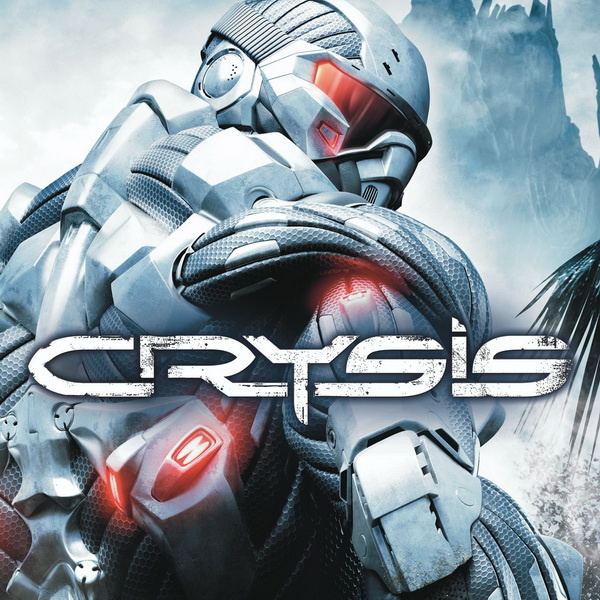
Crysis Font
Fonts in UseCrysis is a first-person shooter video game developed by Crytek. The game's storyline revolves around a group of military super soldiers equipped with advanced nanosuits, engaging in a battle against both North Korean and extraterrestrial forces on a tropical island.
The Crysis cover art features a nanosuit wearing fighter and a grunge-style logotype, with the font called Crysis Bold by Romochka. The font is available for free download from the Fonts Used Section with uppercase letters, numbers, punctuation marks, and accented letters.